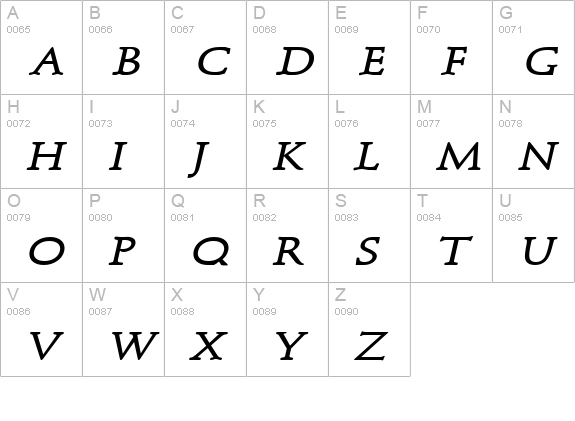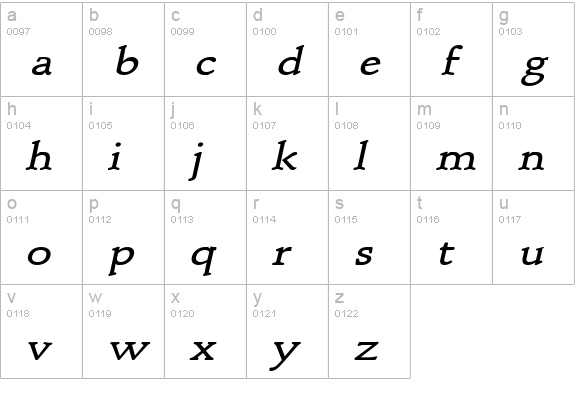
Schroeder Wide Bold Italic is a strong, high-contrast, extended-width, italic variant in the Schroeder typeface family \xE2\x80\x94 well suited to headlines, attention-grabbing titles, and strong calls-to-action.
Schroeder Wide Bold Italic font is a stunning typographic masterpiece that effortlessly combines boldness and elegance. Its wide design adds a touch of sophistication and modernity to any project, while the italic styling brings a sense of dynamism and movement. This font is perfect for making a strong statement in headlines, titles, and branding materials. Its bold strokes command attention and exude confidence, making it ideal for grabbing the viewer's eye. Beyond its visual appeal, Schroeder Wide Bold Italic font is also incredibly versatile. It can be used across a wide range of design projects, from advertising campaigns to website headers, from magazine layouts to product packaging. Its distinctive style sets it apart from other fonts, making it a go-to choice for designers looking to make an impact. The best part? Schroeder Wide Bold Italic font is available for free download at FontsMarket.com. With just a few clicks, you can add this remarkable font to your design arsenal and start creating visually captivating projects. Whether you're a professional designer or a passionate hobbyist, this font will undoubtedly elevate your work to new heights. So why wait? Discover the power of Schroeder Wide Bold Italic font and unleash your creativity. Download it now, for free, at FontsMarket.com and let your designs speak volumes with its bold and elegant presence.